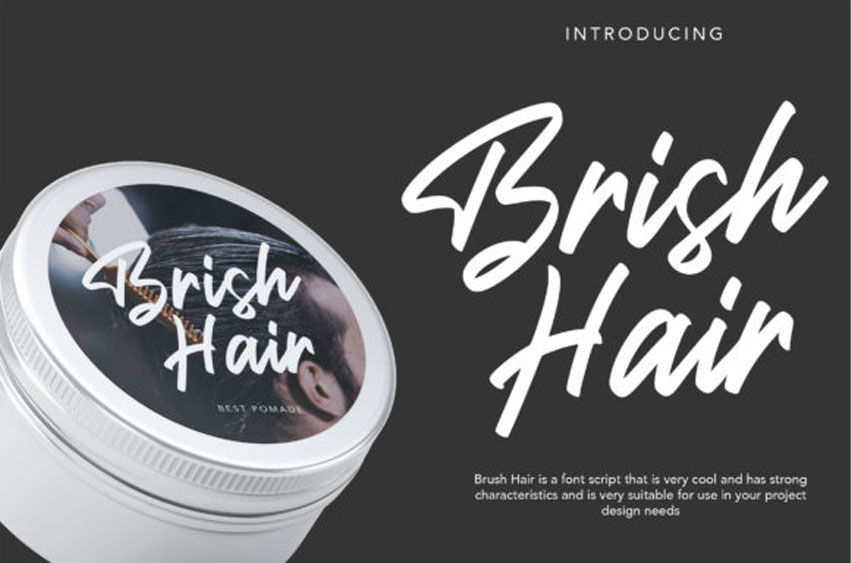
Brish Hair Font is an incredibly distinct, delicate and timeless handwritten font.
It looks stunning on wedding invitations, thank you cards, quotes, greeting cards, logos, business cards and every other design which needs a handwritten touch.